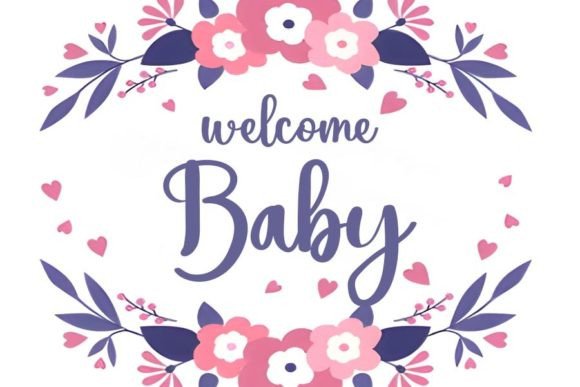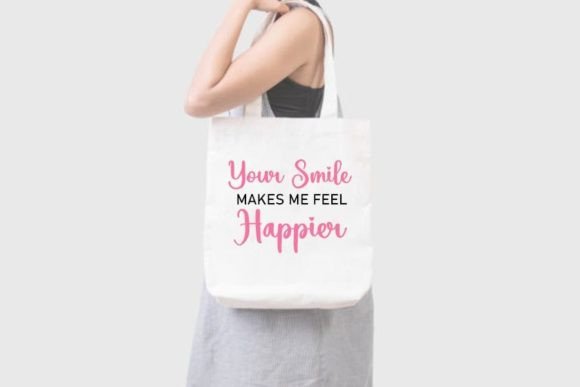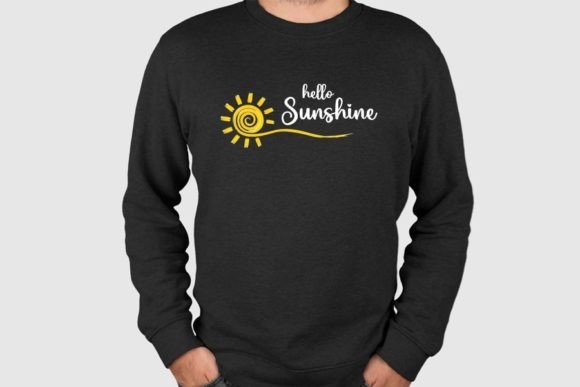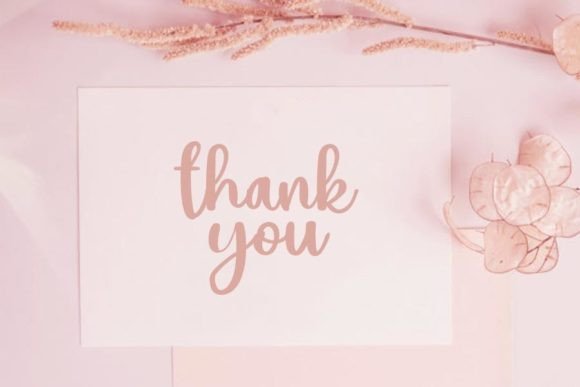
The Perfect Handwritten Touch: Birth Flower Font
Have you ever found yourself sitting at your desk, surrounded by scraps of paper, pencils, and a blank notebook, feeling the urge to create something beautiful and unique? That’s exactly where the magic happens, and for many designers, it’s a moment of pure inspiration. As you begin to scribble down your ideas, the Birth Flower Font comes to life in your mind’s eye – a stunning, elegant handwritten font that adds a personal touch to any design.
Birth Flower Font is more than just a stylish font; it’s a way to convey emotions and connect with your audience on a deeper level. Whether it’s a wedding invitation, a heartfelt thank you card, or a motivational quote, this font is sure to leave a lasting impression. For designers, it’s a valuable asset that can elevate their designs and make them stand out in a crowded market.
Birth Flower Font Key Features
- Font Style: A beautiful, handwritten script font with elegant and refined lines.
- Unique Characteristics: Unique floral-inspired elements, such as intricate flourishes and subtle texture, add a touch of whimsy and sophistication.
Designer Review: Birth Flower Font
✨ The Birth Flower Font has a unique charm to it, with a beautiful blend of floral and cursive elements. It’s perfect for designers looking to add a touch of whimsy and romance to their projects. The font’s irregularities and flourishes give it a hand-drawn feel that’s both organic and charming.
✨ Another strength of the font is its versatility. It can be used for a wide range of applications, from wedding invitations and birthday cards to branding and packaging. The font’s adaptability makes it a great choice for designers who need a versatile font that can be used in multiple contexts.
⚠️ One of the limitations of the font is its legibility. While it’s perfect for small-scale use, the font can become difficult to read when used in larger sizes or for long blocks of text. Additionally, the font’s flourishes and irregularities can make it challenging to pair with other fonts.
⚠️ Another limitation is the font’s limited character set. While it’s suitable for most common characters, it may not include some special characters or symbols that designers may need to use.
Overall, the Birth Flower Font is a charming and versatile font that’s perfect for designers looking to add a touch of whimsy to their projects. However, its limitations may make it less suitable for larger-scale use or for designers who need a more robust font.
- Unique charm and blend of floral and cursive elements
- Perfect for small-scale use and versatile applications
- Limited legibility at larger sizes or for long blocks of text
- Challenging to pair with other fonts due to flourishes and irregularities
- Limited character set
The Birth Flower Font is perfect for:
– Creating personalized cards and invitations.
– Designing birth flower bouquets and arrangements.
– Making custom wedding invitations and decorations.
– Adding a touch of elegance to presentations and documents.